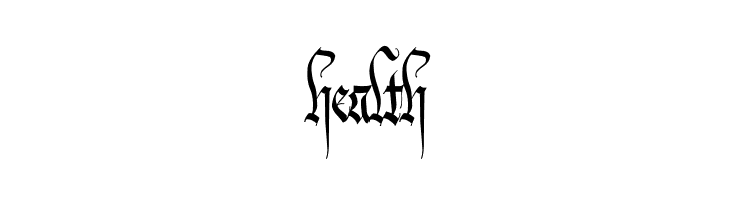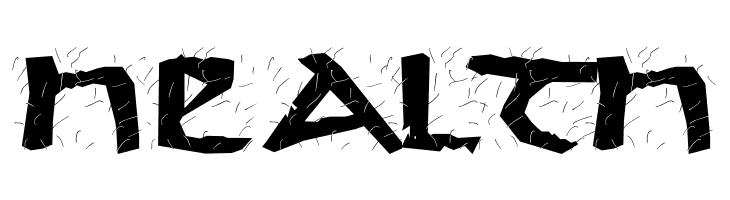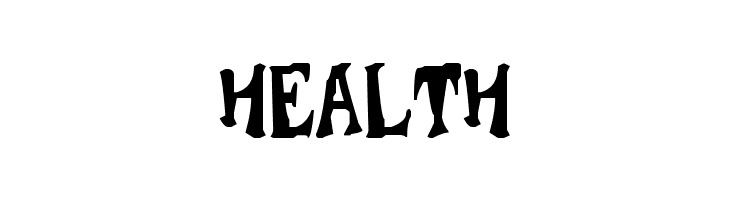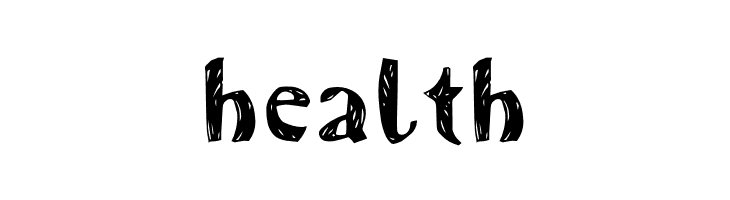
A bold, 3D stone-textured font with a rugged, angular design.
A bold, jagged font with a chiseled, high-contrast design.
A jagged, ice-inspired font with a playful and bold design.
A bold, linocut-inspired font with a dynamic, handcrafted appearance.
A bold, runic-style font with a textured, ancient appearance.
A bold, high-contrast serif font with elegant and classic features.
A decorative serif font with intricate line patterns and a vintage-modern appeal.
A bold, cutout-style font with high contrast and geometric shapes.
An elegant outline serif font with high contrast and refined details.
A bold, gothic-style font with sharp, angular lines and intricate details.
A bold, textured font with a rugged, stone-like appearance.
A rugged, distressed font with jagged edges and a chaotic, hand-drawn style.
A bold, decorative font with a unique slashed pattern for dynamic visual impact.
A bold, fiery font with a rugged, flame-like texture.
A rugged, vintage-style font with distressed detailing and high contrast strokes.
A bold, rugged font with jagged edges and a distressed, grungy style.
A handcrafted, woodblock-inspired font with intricate line work and a rustic aesthetic.
A bold, distressed 3D font with a rugged, stone-like appearance.
A rugged, textured font with a splintered wood appearance.
A playful, wood-textured font with a rustic, handcrafted appearance.
A bold, geometric font with a futuristic and industrial design.
A rustic, handcrafted font with an organic, woodcut appearance.
A bold, geometric font with a 3D beveled design and strong industrial feel.
A bold, industrial 3D font with rugged, block-like characters.
A rugged, distressed font with jagged edges and bold strokes.
A bold, 3D block font with a distressed, stone-like texture.
A bold, chiseled font with a three-dimensional effect and expanded width.
A bold, decorative font with a three-dimensional, shadowed style.
A bold, angular font with a futuristic and edgy design.
A bold, distressed Gothic font with intricate detailing and a textured, vintage appearance.
A rugged, distressed font with sharp, jagged edges and a rebellious style.
A bold, 3D italic font with a jagged, spooky appearance.